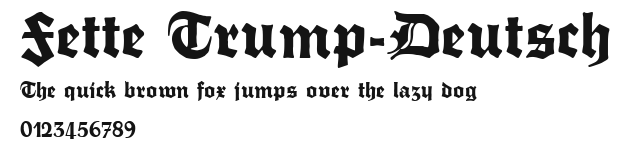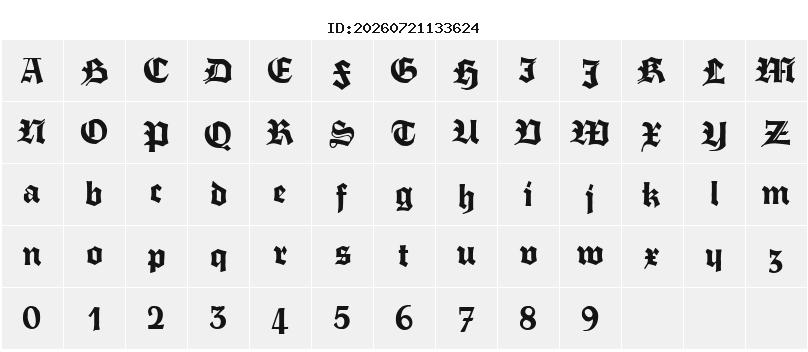
• Font Name: Fette Trump-Deutsch
• Designer: Dieter Steffmann
• Description: Fette Trump-Deutsch geschaffen von Prof. Georg Trump, 1936. Digitalisiert durch Dieter Steffmann, Kreuztal.